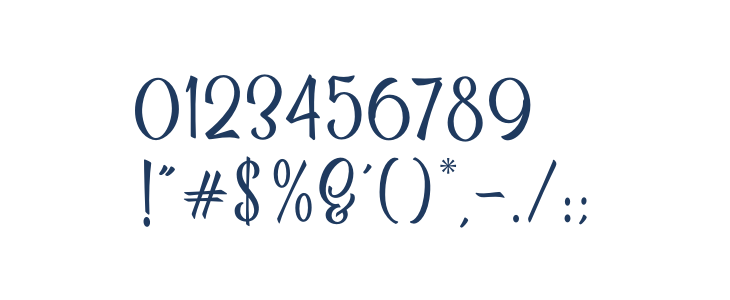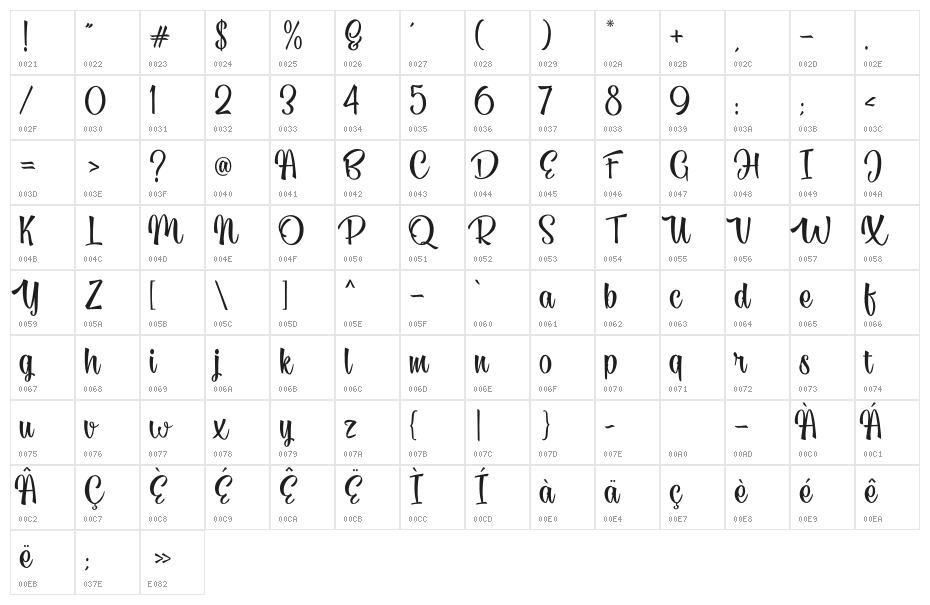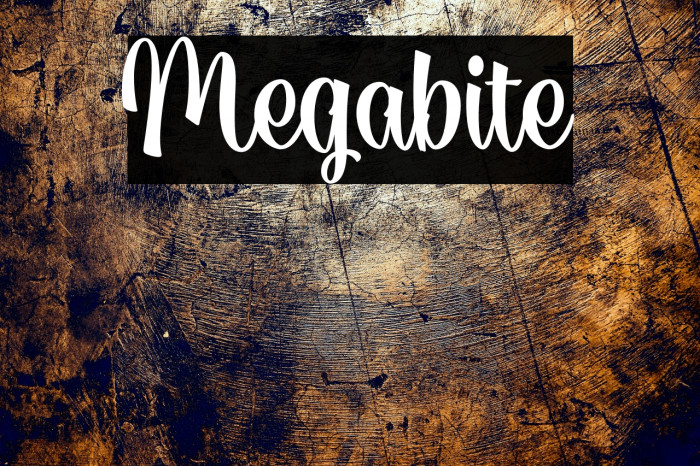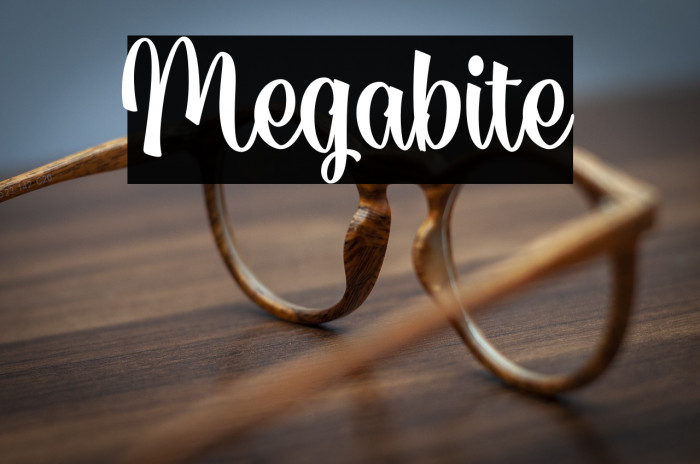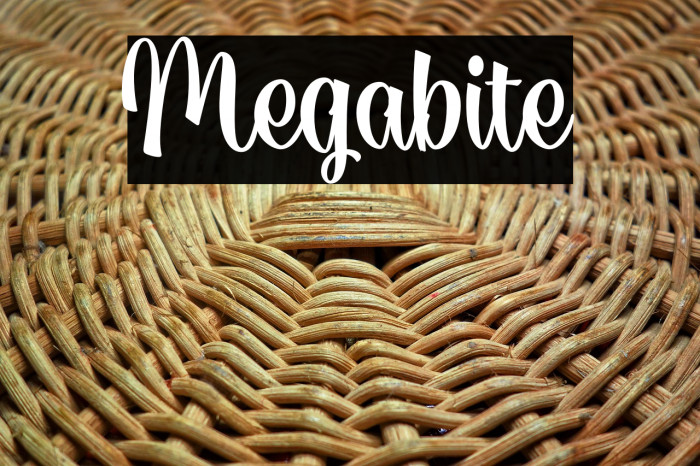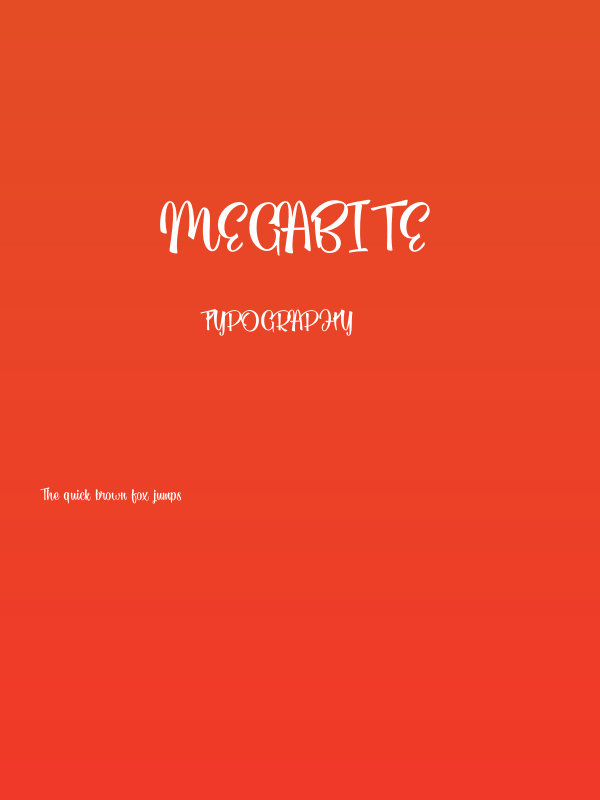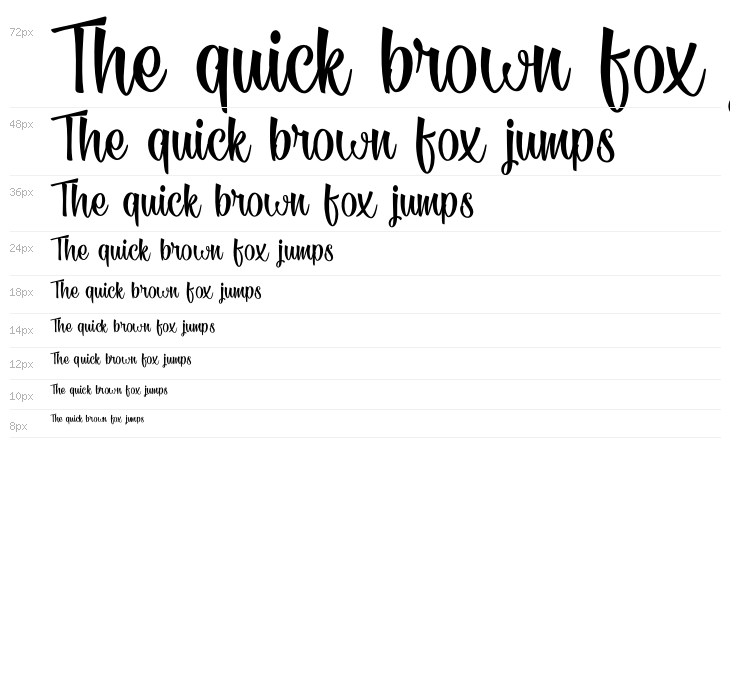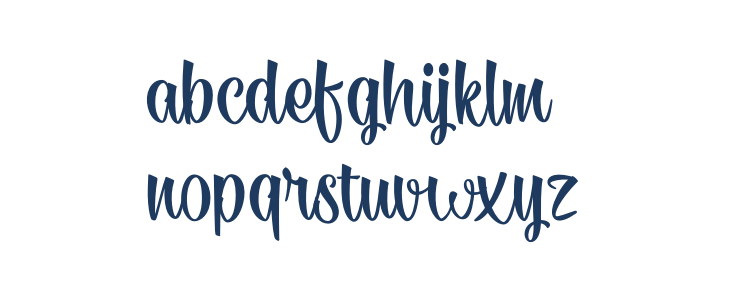
Megabite Font
Megabite Description
This font features a playful and energetic script style, characterized by its flowing, cursive letters that convey a sense of movement and dynamism. The uppercase letters are bold and slightly slanted, with exaggerated loops and swirls that add a whimsical touch. The lowercase letters maintain the same lively spirit, with a consistent stroke width that ensures readability while preserving the font's decorative nature. The numbers and special characters are equally expressive, integrating seamlessly with the alphabet to create a cohesive and visually appealing typeface. This font is perfect for projects that require a touch of fun and creativity, making it ideal for invitations, greeting cards, and playful branding.